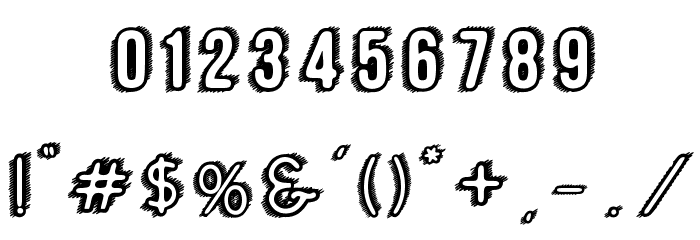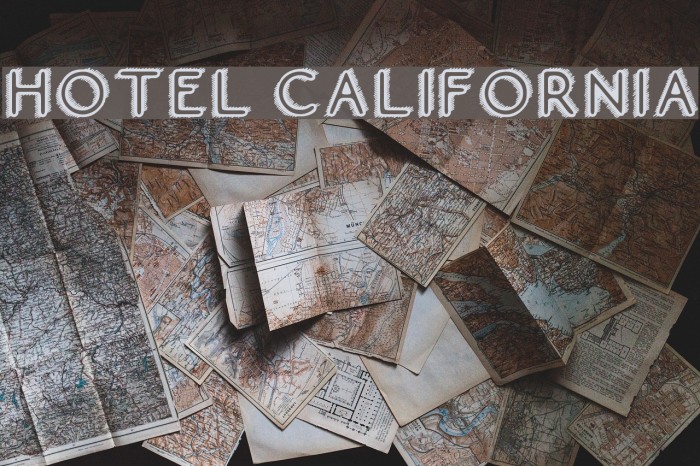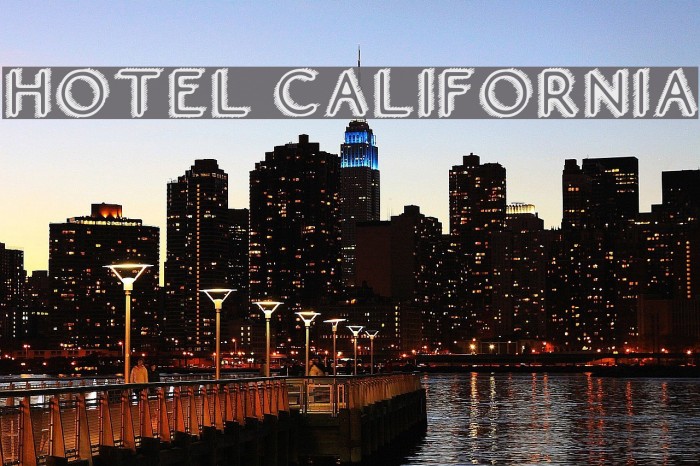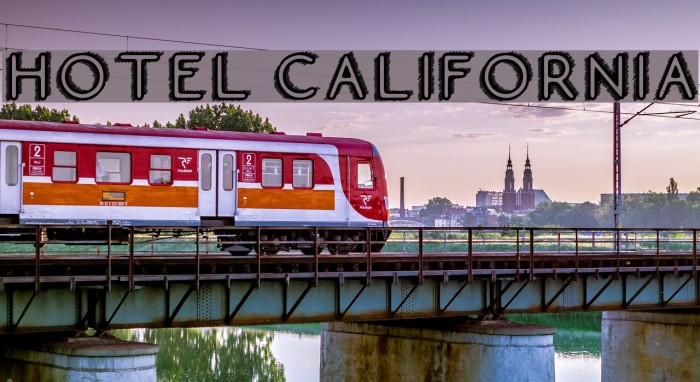
Hotel California Font
Hotel California Description
This font features a bold, decorative style with a unique textured outline that gives each character a dynamic and eye-catching appearance. The uppercase letters are uniform in height and width, with a slight slant that adds a sense of movement. The lowercase letters maintain the same textured outline, creating a cohesive look across the alphabet. Numbers and special characters are designed with the same attention to detail, ensuring consistency throughout. The font's playful yet structured design makes it suitable for projects that require a touch of creativity and flair.
A bold, decorative font with a textured outline and dynamic style from Uncategorized fonts.
- Proposed Projects: Ideal for posters, branding, album covers, and any project needing a bold statement.